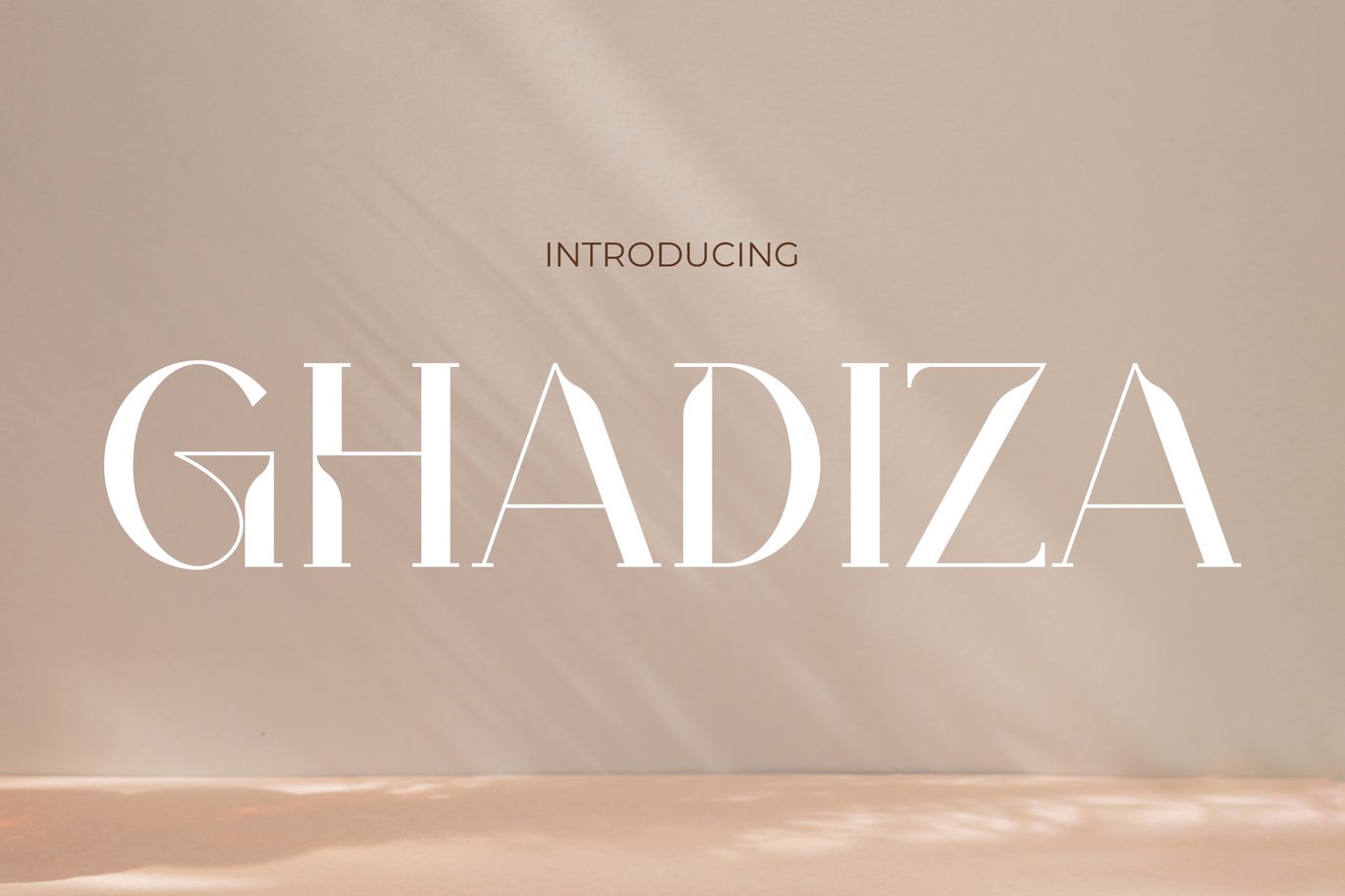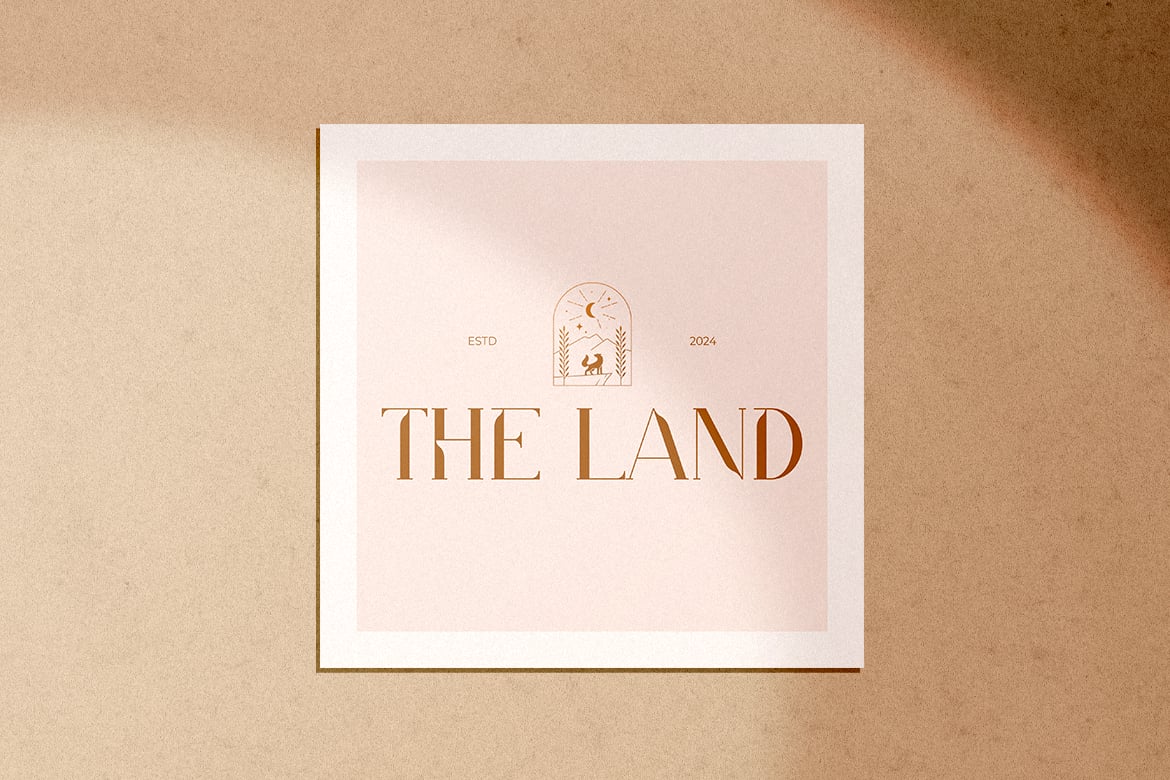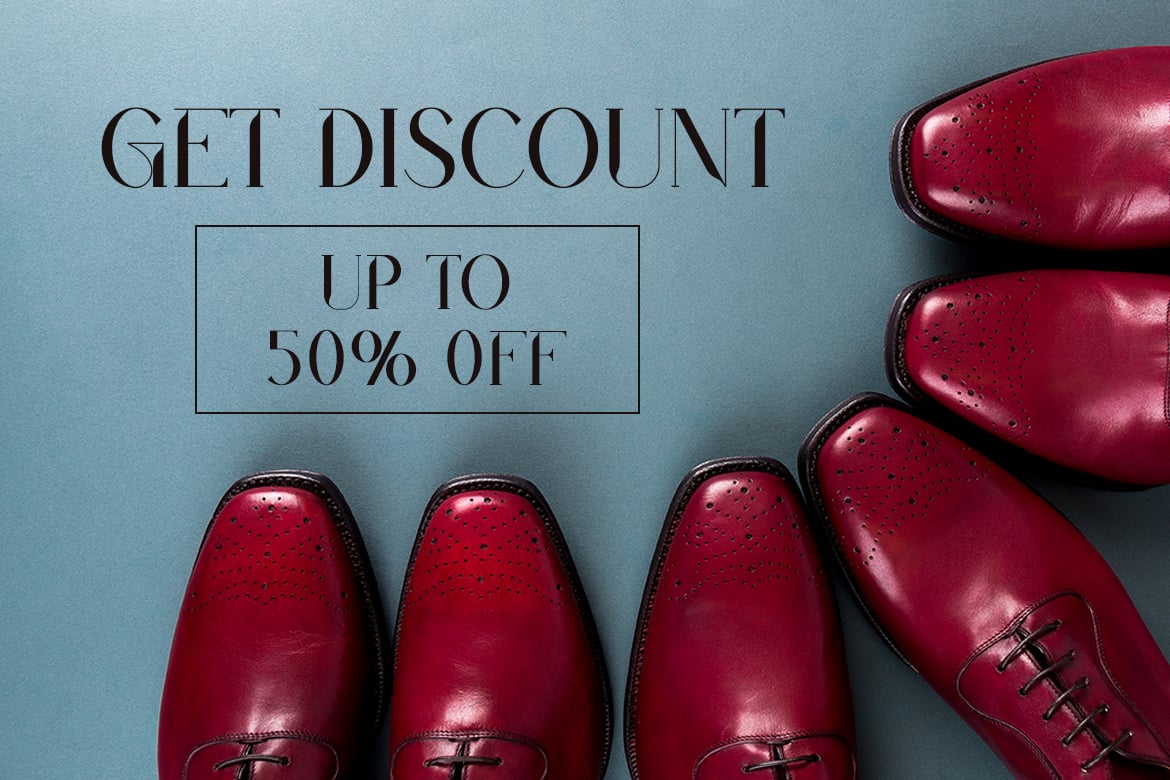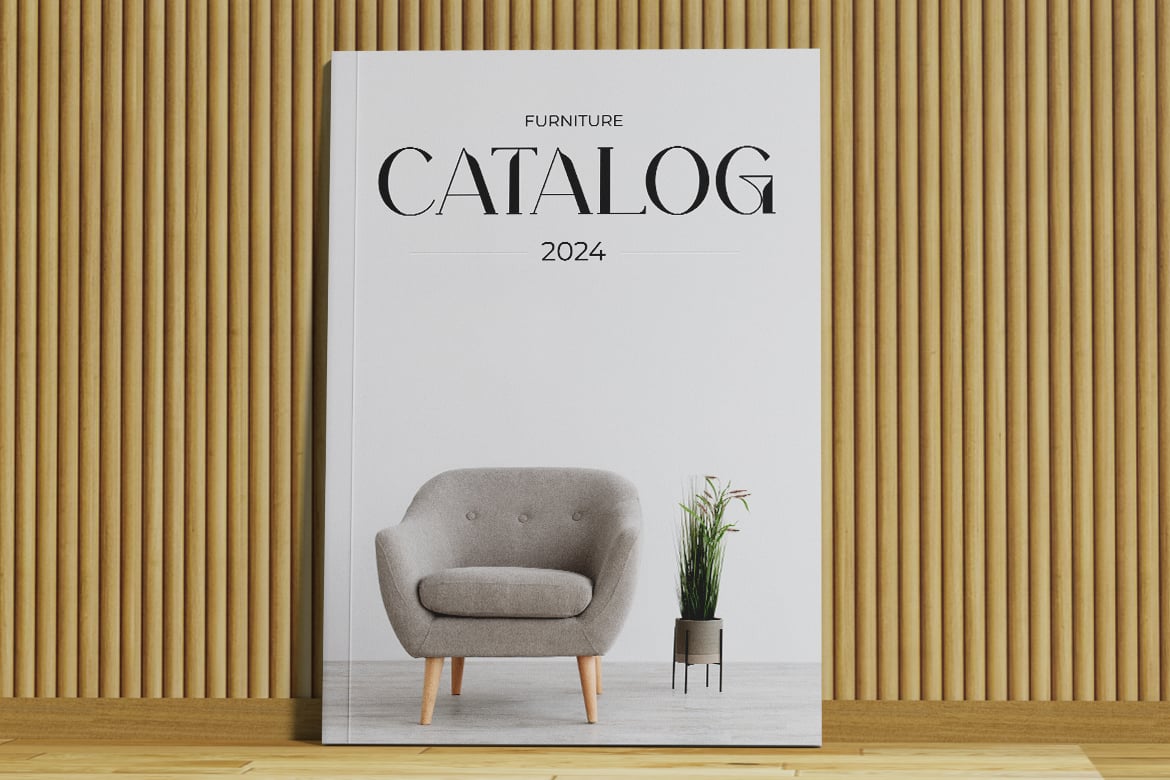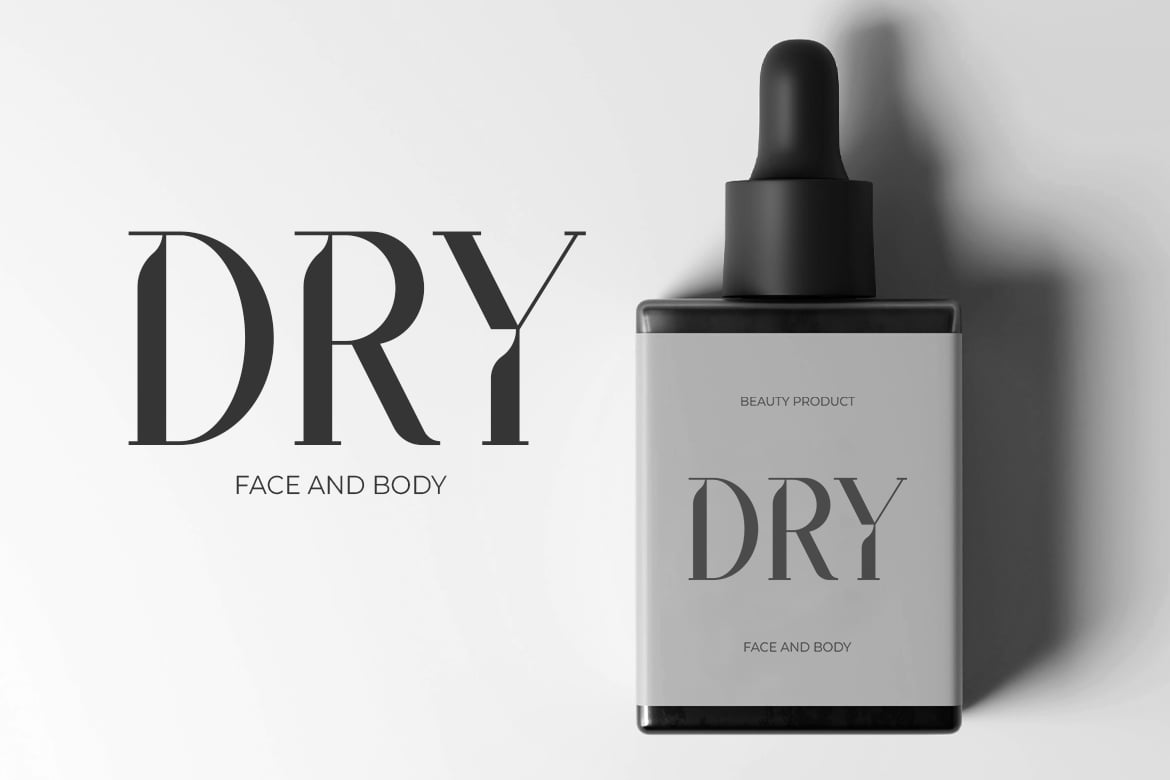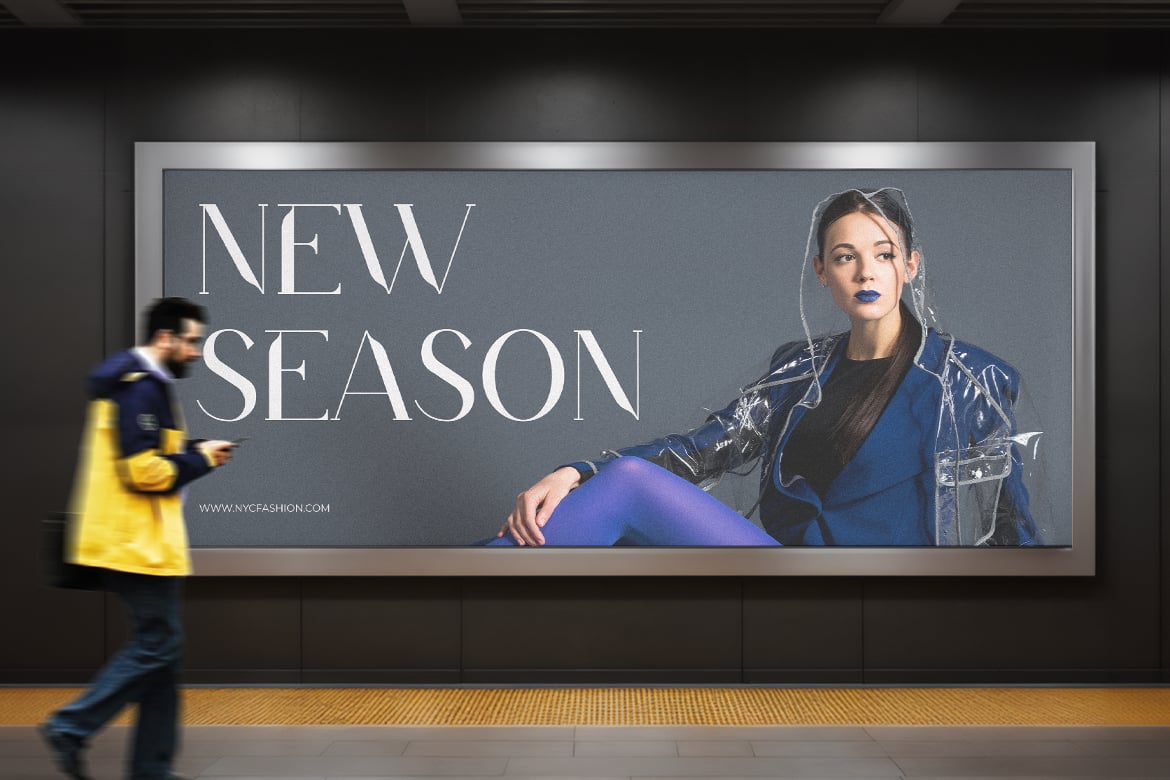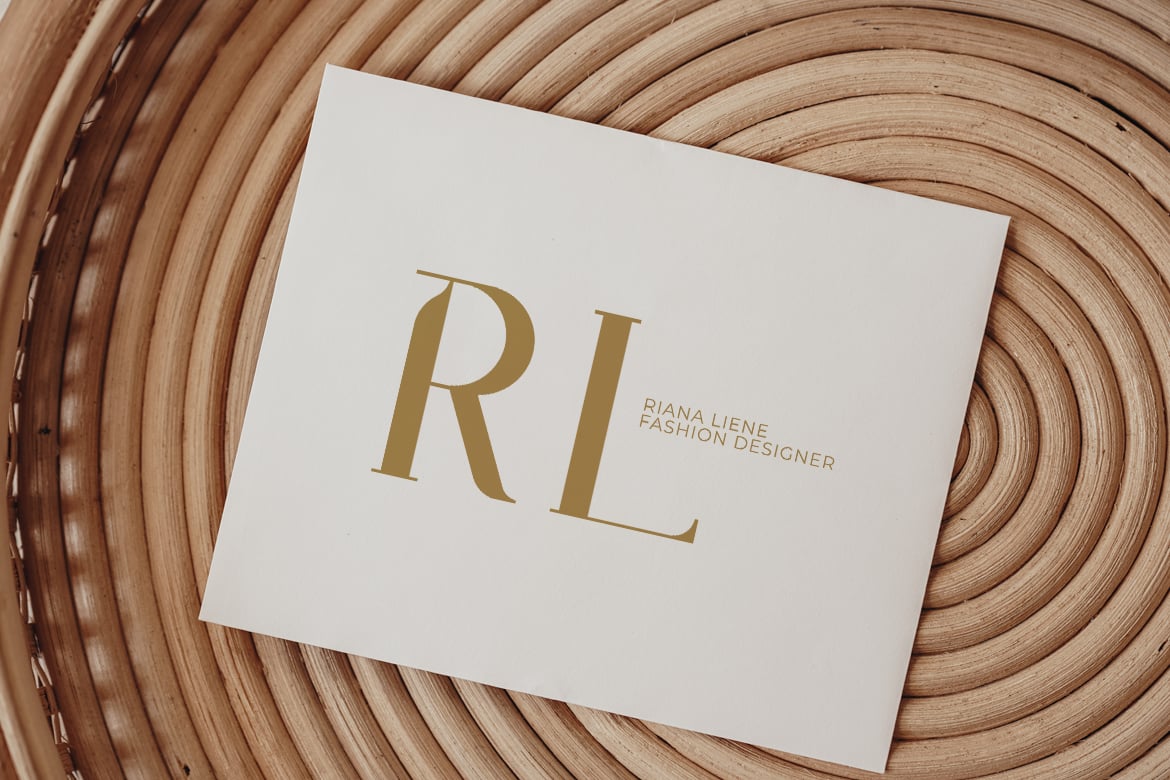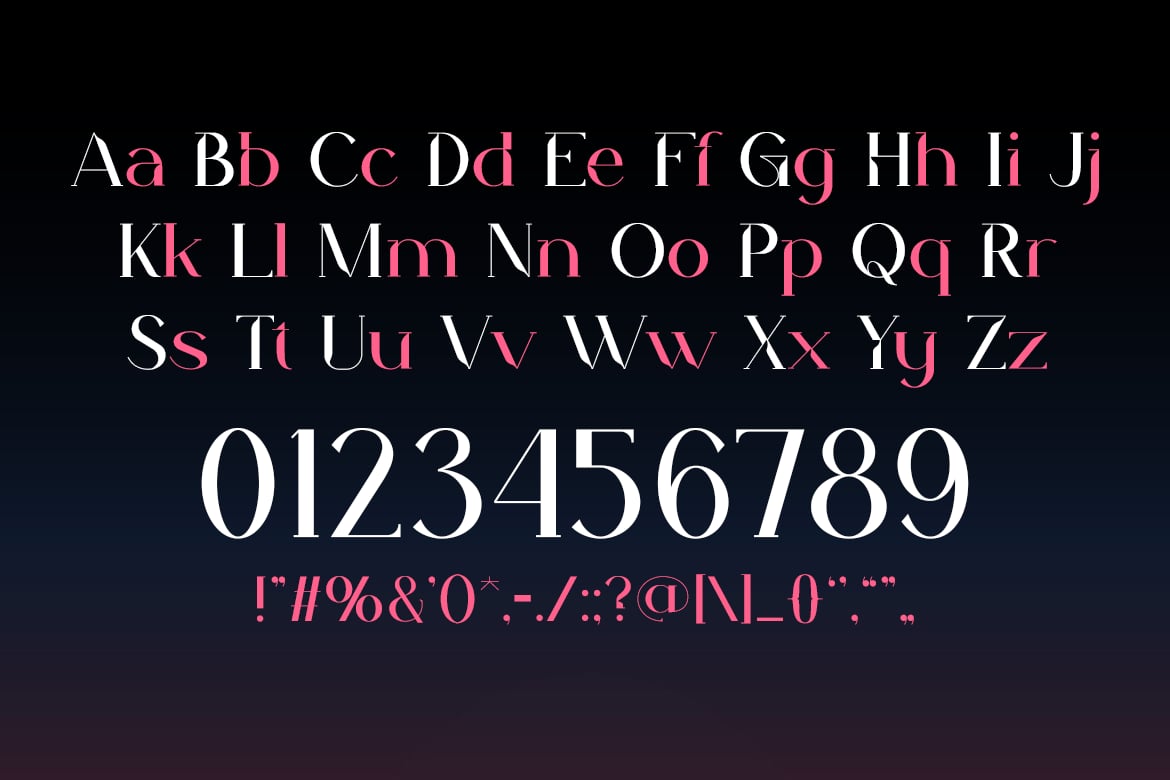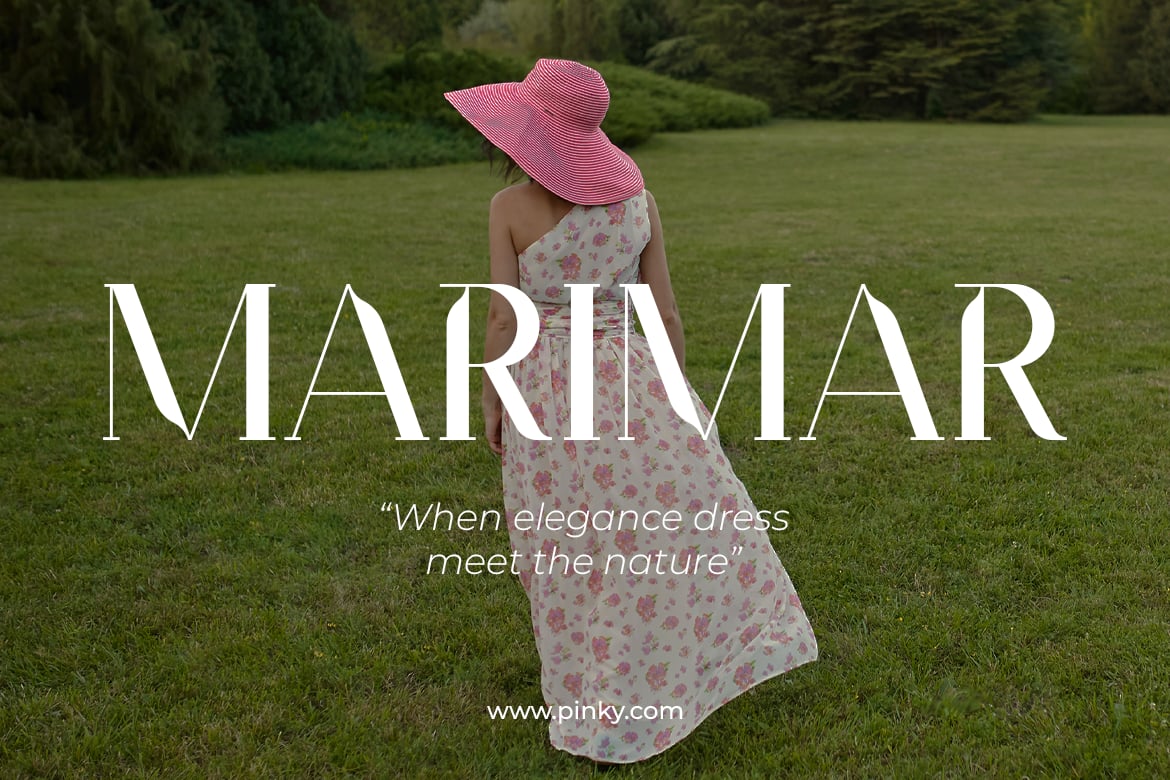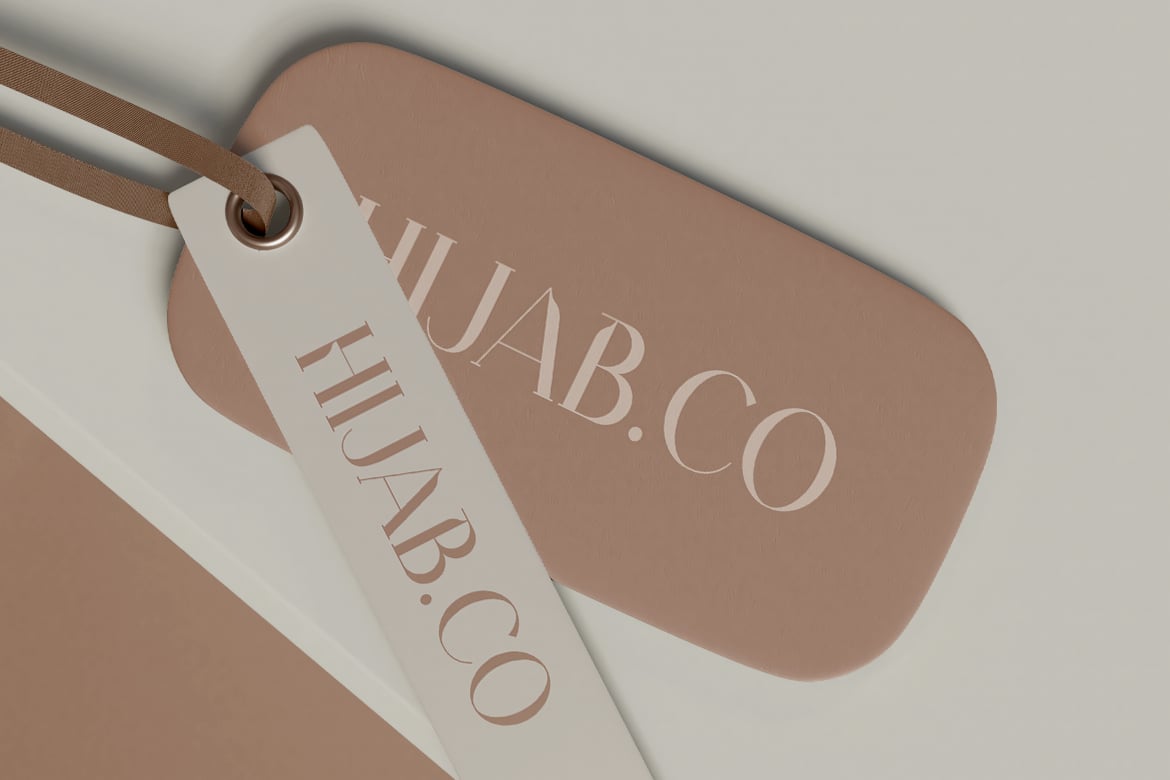
Ghadiza – Modern Girly Font
Ghadiza is a modern serif font that embodies beauty, chic style, and a touch of girlish charm, making it perfect for a wide range of contemporary applications. This font blends elegance with a fresh aesthetic, ideal for crafting logos that need to stand out with sophistication and grace. Ghadiza enhances quotes with its stylish contours, bringing a unique personality to each word. It’s also perfect for designing invitations that impress and engage, as well as posters and greetings that demand a modern yet feminine touch. Whether used in packaging, branding, or book covers, Ghadiza ensures that each design communicates with beauty and clarity. Its versatility extends to event promotions, headlines, and advertising, where its chic and girly style can truly captivate and attract the desired audience.